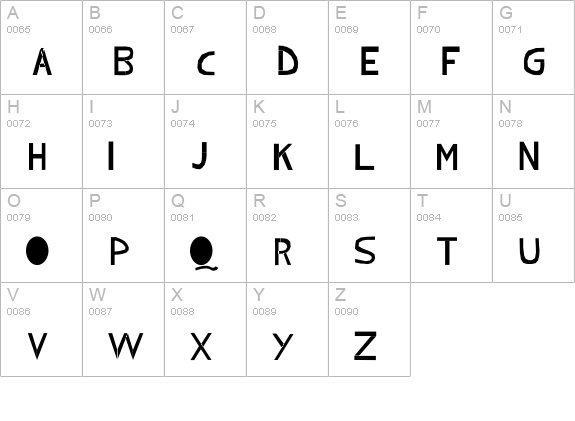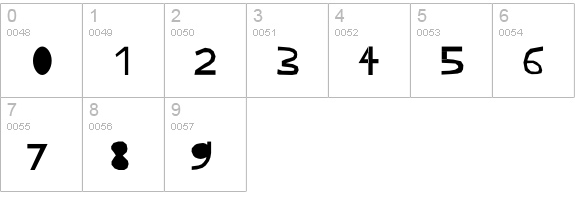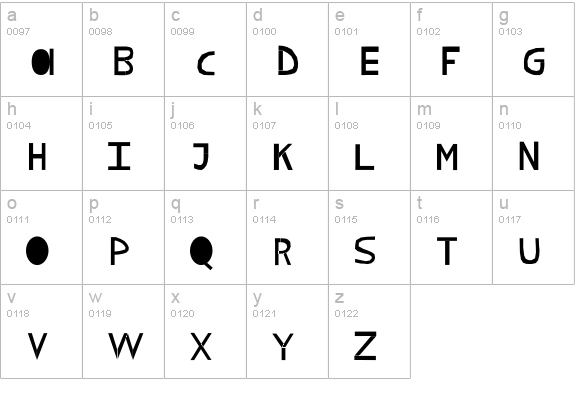
Kilimanjaro Three Font Details
Introducing Kilimanjaro Three, a font that embodies elegance and versatility. This meticulously crafted typeface is a perfect blend of modern aesthetics and timeless charm, making it ideal for a wide range of design projects. Kilimanjaro Three exudes a sense of sophistication with its clean lines and balanced proportions. Its graceful letterforms are carefully crafted to create a harmonious visual experience, whether used for headlines, logos, branding, or any other creative endeavor. What sets Kilimanjaro Three apart is its accessibility - it is freely available to download at FontsMarket.com. This means that you can effortlessly incorporate this stunning font into your projects without any hassle or financial burden. With just a few clicks, you can have access to this truly exceptional typeface that will elevate your designs and captivate your audience. Whether you're a professional designer or a creative enthusiast, Kilimanjaro Three offers you the opportunity to unleash your creativity without any limitations. Its versatility allows it to seamlessly adapt to various design styles, whether you're aiming for a contemporary look or a more traditional aesthetic. With its extensive character set, Kilimanjaro Three supports multiple languages, making it a truly global font that can be utilized by designers from all corners of the world. Its legibility and readability ensure that your message will be conveyed effortlessly, regardless of the language or context. So why wait? Experience the power of Kilimanjaro Three and take your designs to new heights. Download this exceptional font for free at FontsMarket.com and let your creativity soar.